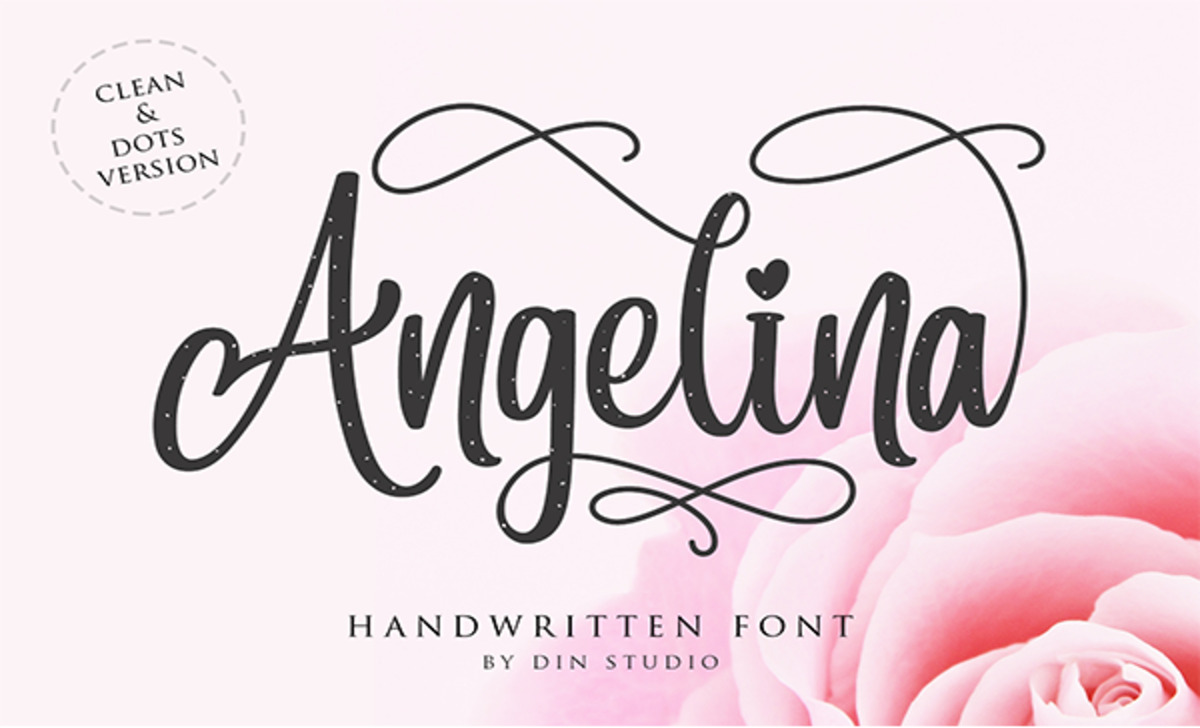
Angelina is a beautifully crafted handwritten font designed by Angie Durbin. Released with a natural and modern style, this font brings a personal and elegant touch to any design project.
It’s a casual script machine embroidery font that includes A-Z, a-z, 0-9, and the following punctuation: ~!@$()-[]:;”‘,.?/ (79 total characters). With its intricate ligatures and decorative swashes, Angelina offers a sophisticated alternative to standard script fonts.
The Angelina Font Family Includes
The Angelina font features beautiful ligatures for smooth, flowing transitions, PUA encoding for easy glyph access, and multilingual support for various languages. It includes numerals, punctuation, stylistic alternates, and lovely decorative swashes for enhanced design flexibility. This font family includes two distinct versions:
Both versions feature a comprehensive set of characters, including 256 glyphs, uppercase and lowercase letters, numerals, punctuation, and multilingual symbols. Each style is designed to enhance your design with its unique, flowing strokes.
Angelina Font Found In Use
Angelina is frequently used in elegant wedding stationery and high-end branding. Its flowing lines and decorative elements make it ideal for projects where a personal, stylish touch is desired.
Angelina excels in various design contexts. Its fluid, handwritten style is perfect for projects that require a romantic and sophisticated flair. From luxury event invitations to artistic quotes and watermarks, Angelina stands out with its distinctive handwritten appeal.
Angelina is a standout choice for designers seeking a typeface that combines romance with modern elegance. Its handcrafted look, versatile glyphs, and unique stylistic elements make it perfect for a variety of creative applications. Try it while designing for a wedding or a product launch. Angelina can add a touch of personal charm and sophistication to your work.
5.What Are The Differences Between Angelina Font And Other Similar Fonts?
Angelina features unique decorative swashes and ligatures not found in many similar fonts, offering a more refined and personal touch compared to standard script fonts.